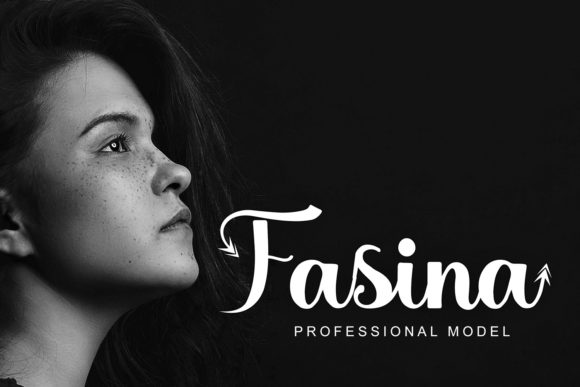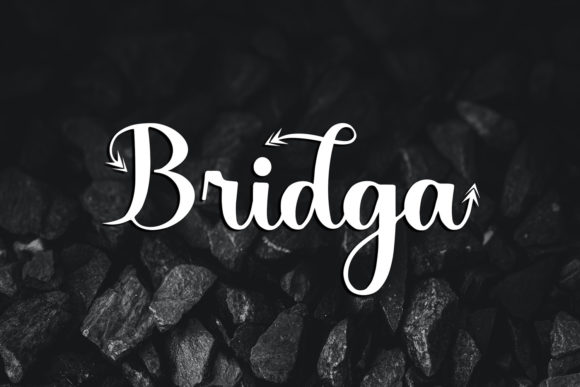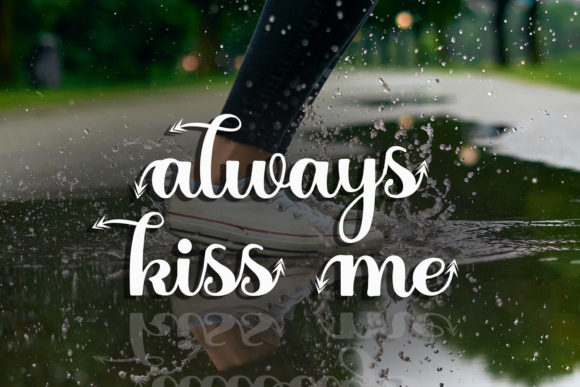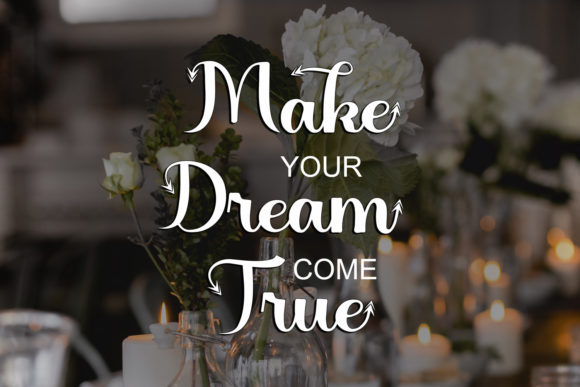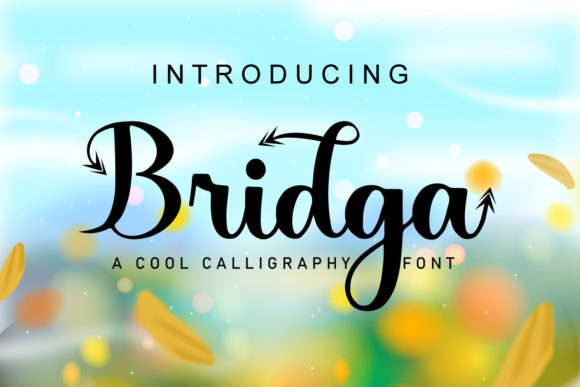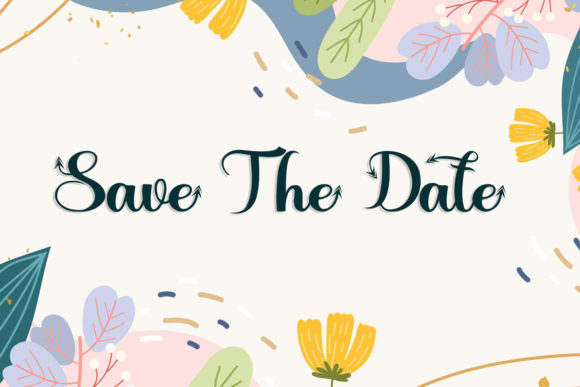
Bridga Font
About Bridga Font
Bridga is a stunning modern script font that combines boldness, elegance, and a touch of vintage charm. With its beautiful swashes and unique letterforms, it offers a wide range of design possibilities.
One of the standout features of Bridga is its collection of bold and elegant swashes. These decorative elements add flair and sophistication to your text, allowing you to create eye-catching headlines, logos, branding materials, and more. The PUA encoding of the font ensures easy access to these special glyphs, making it convenient to incorporate them into your designs.
The modern design of Bridga makes it versatile and suitable for various projects. Its clean lines and balanced proportions give it a contemporary look that works well in both digital and print applications. Whether you’re designing invitations, stationery, packaging, or social media graphics, Bridga brings a touch of elegance and style to your creations.
The vintage-inspired swashes of Bridga add a nostalgic and timeless feel to your designs. They can be used to create decorative elements, emphasize certain words or phrases, or add a touch of elegance to your typography. The combination of modern and vintage elements in Bridga allows you to create designs that are both trendy and classic.
Whether you’re aiming for a minimalist and modern look or a vintage-inspired aesthetic, Bridga offers the flexibility to adapt to different styles and themes. Its versatile nature ensures that it can be used for a variety of projects, from branding and marketing materials to wedding stationery and signage.
Embrace the boldness and elegance of Bridga and explore its wide range of swashes to add a unique and personalized touch to your designs. Let this font elevate your creations and captivate your audience with its modern charm and vintage-inspired flair.